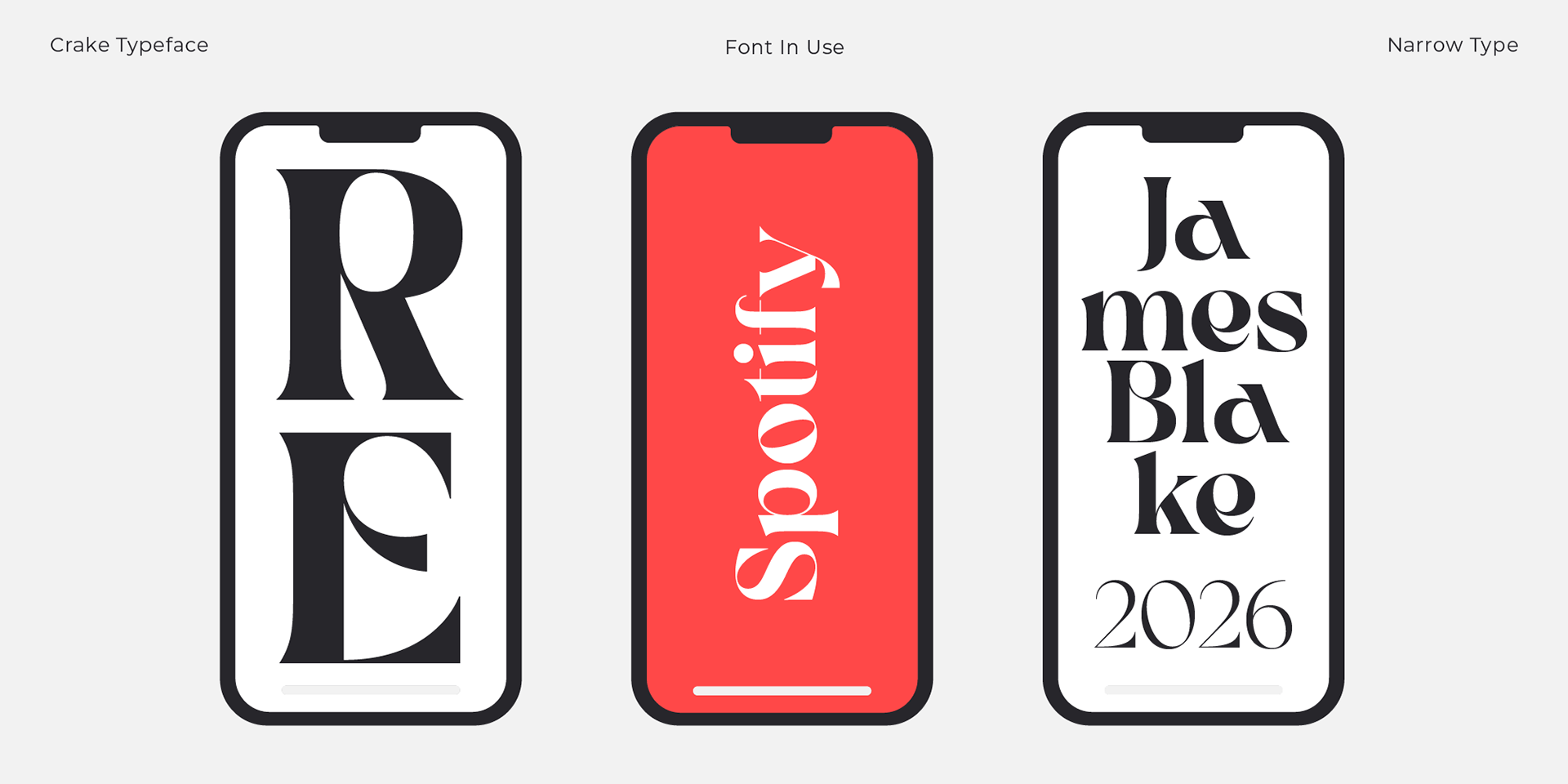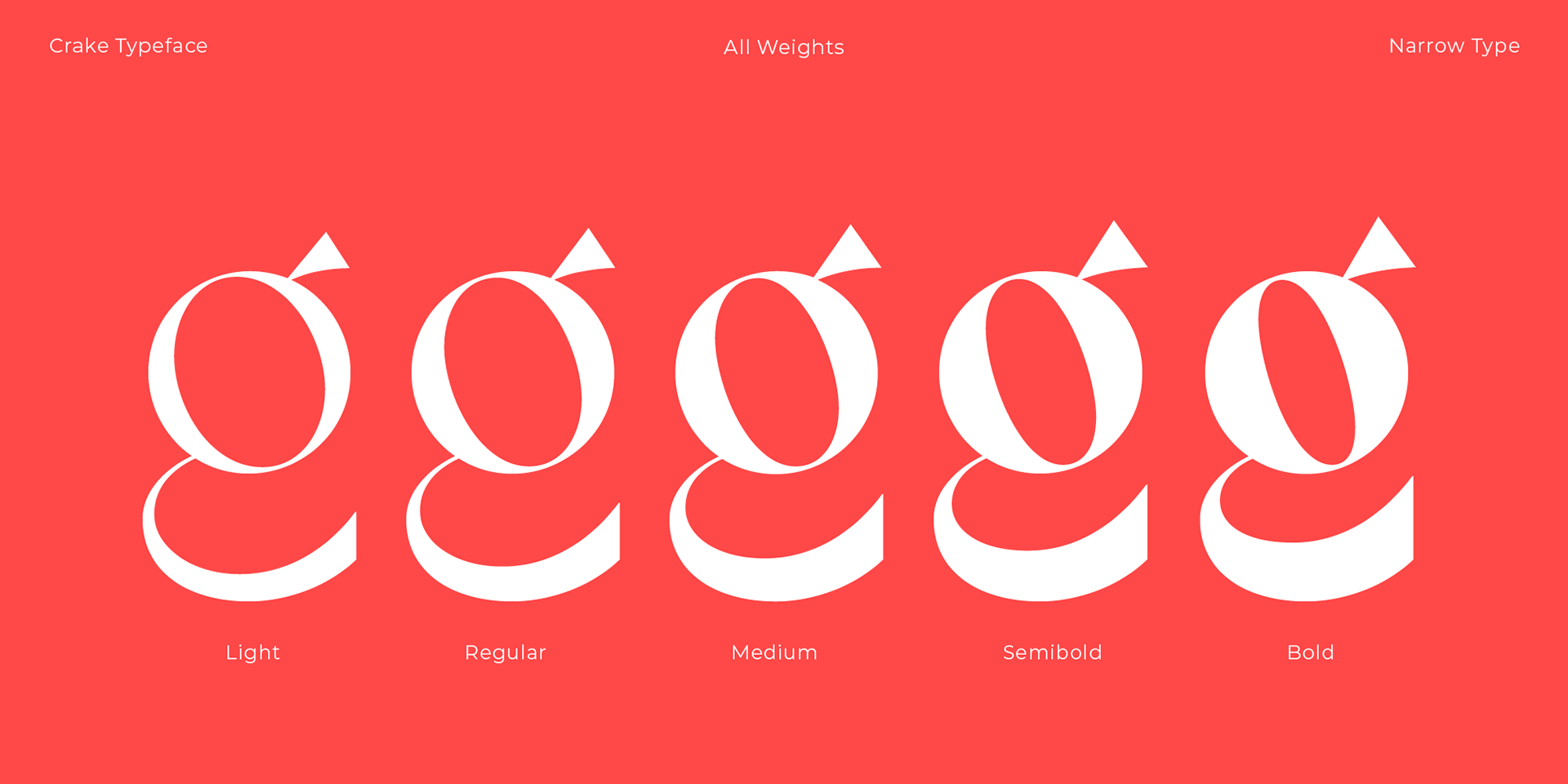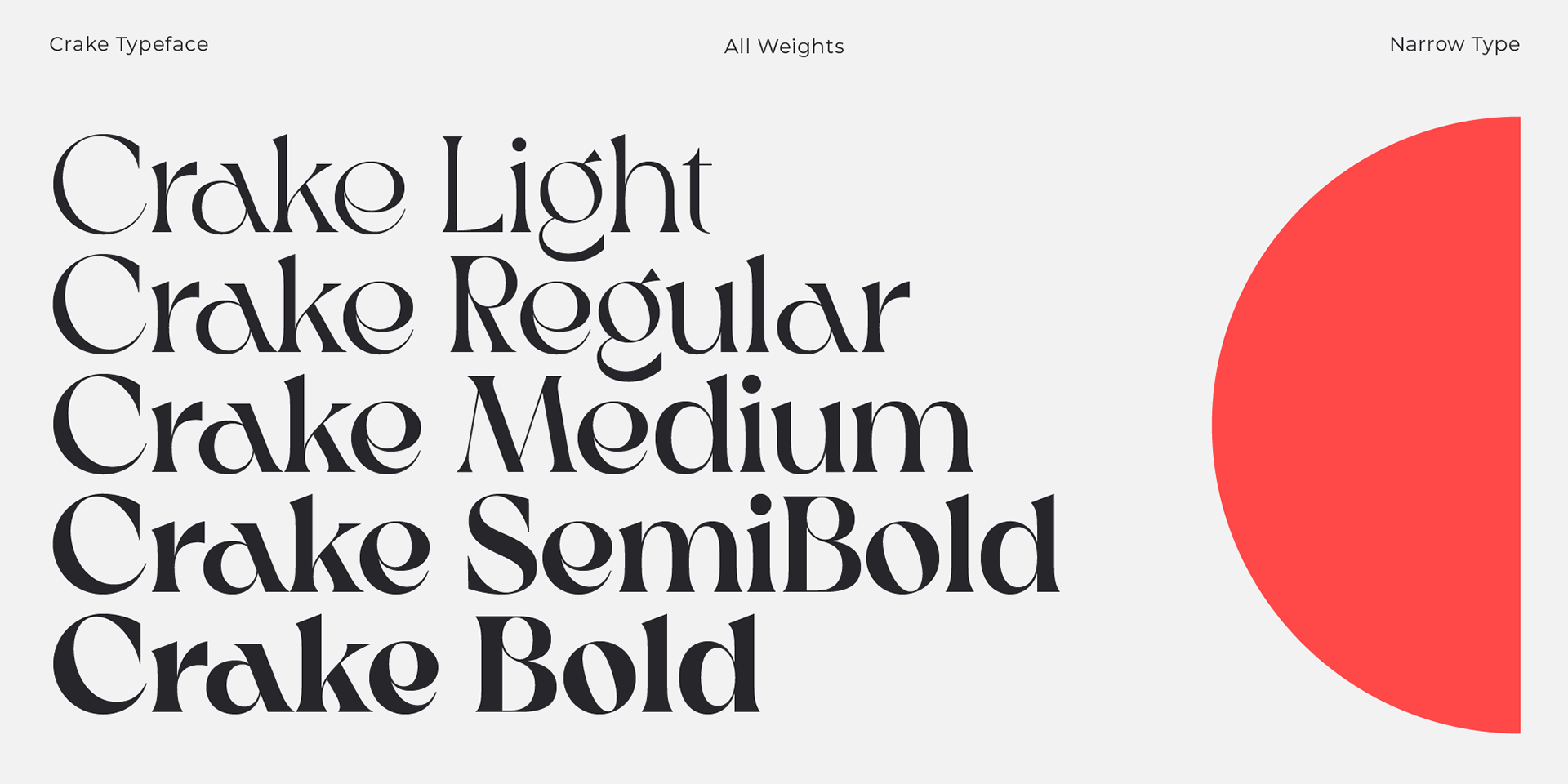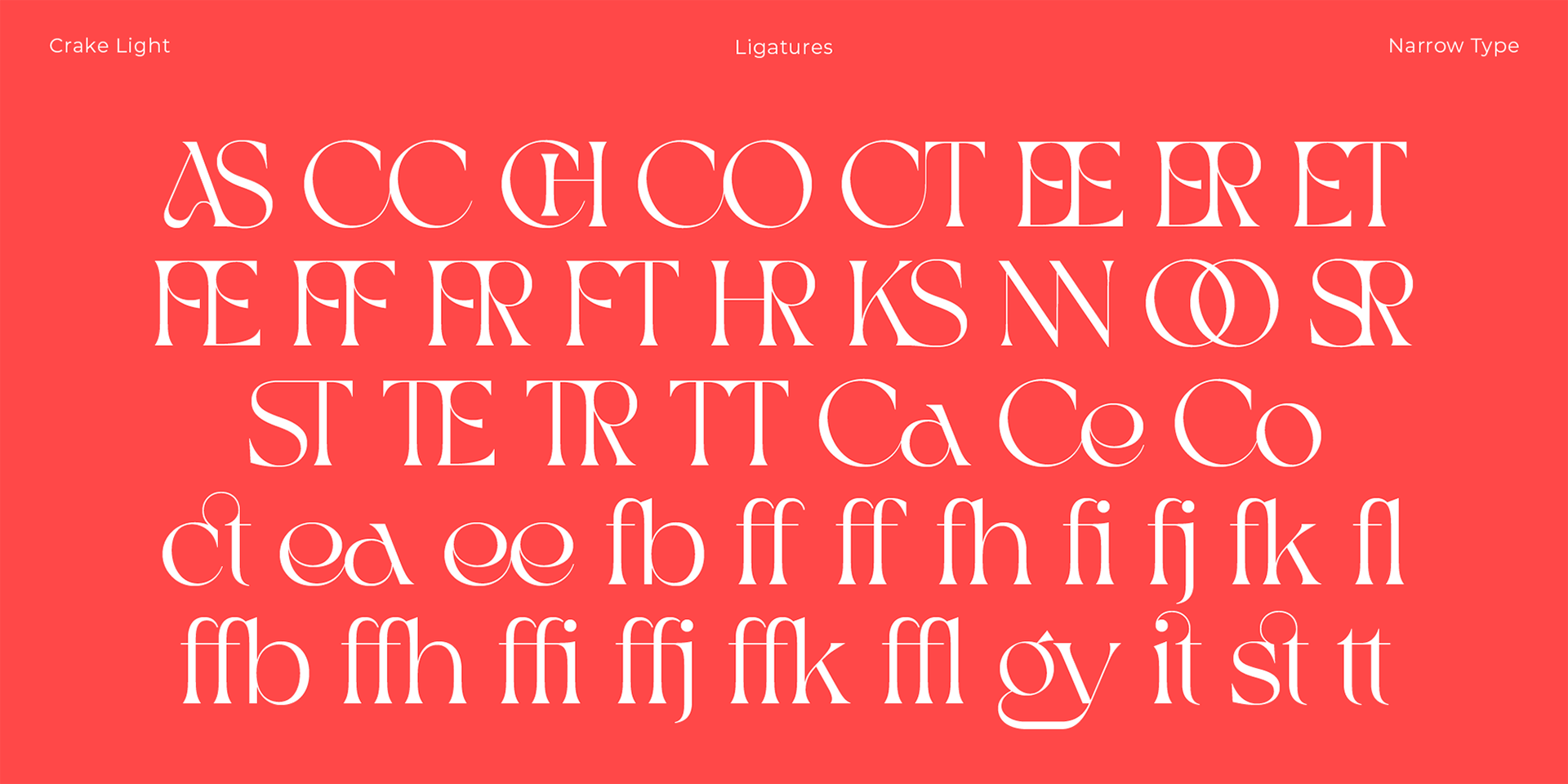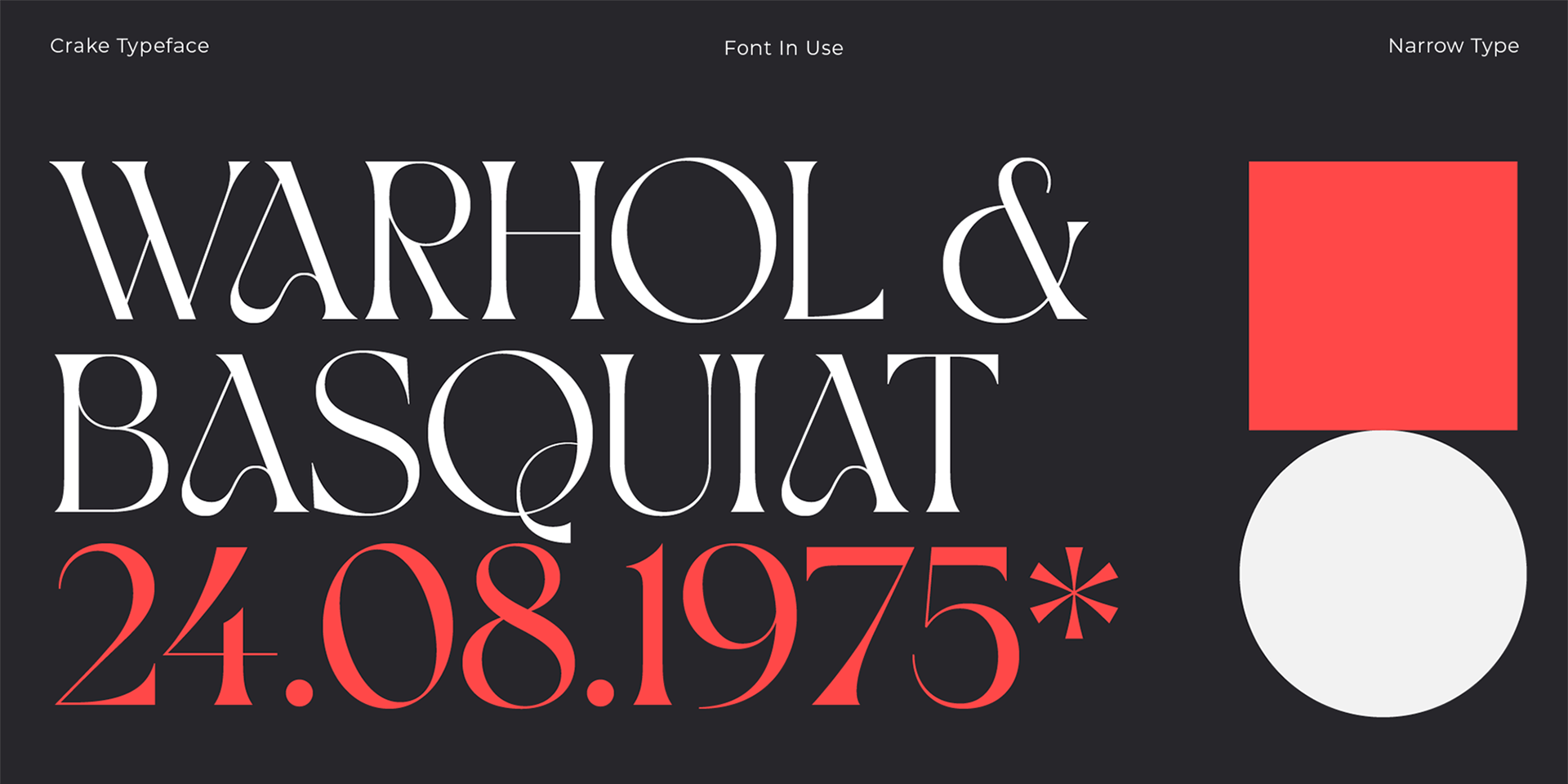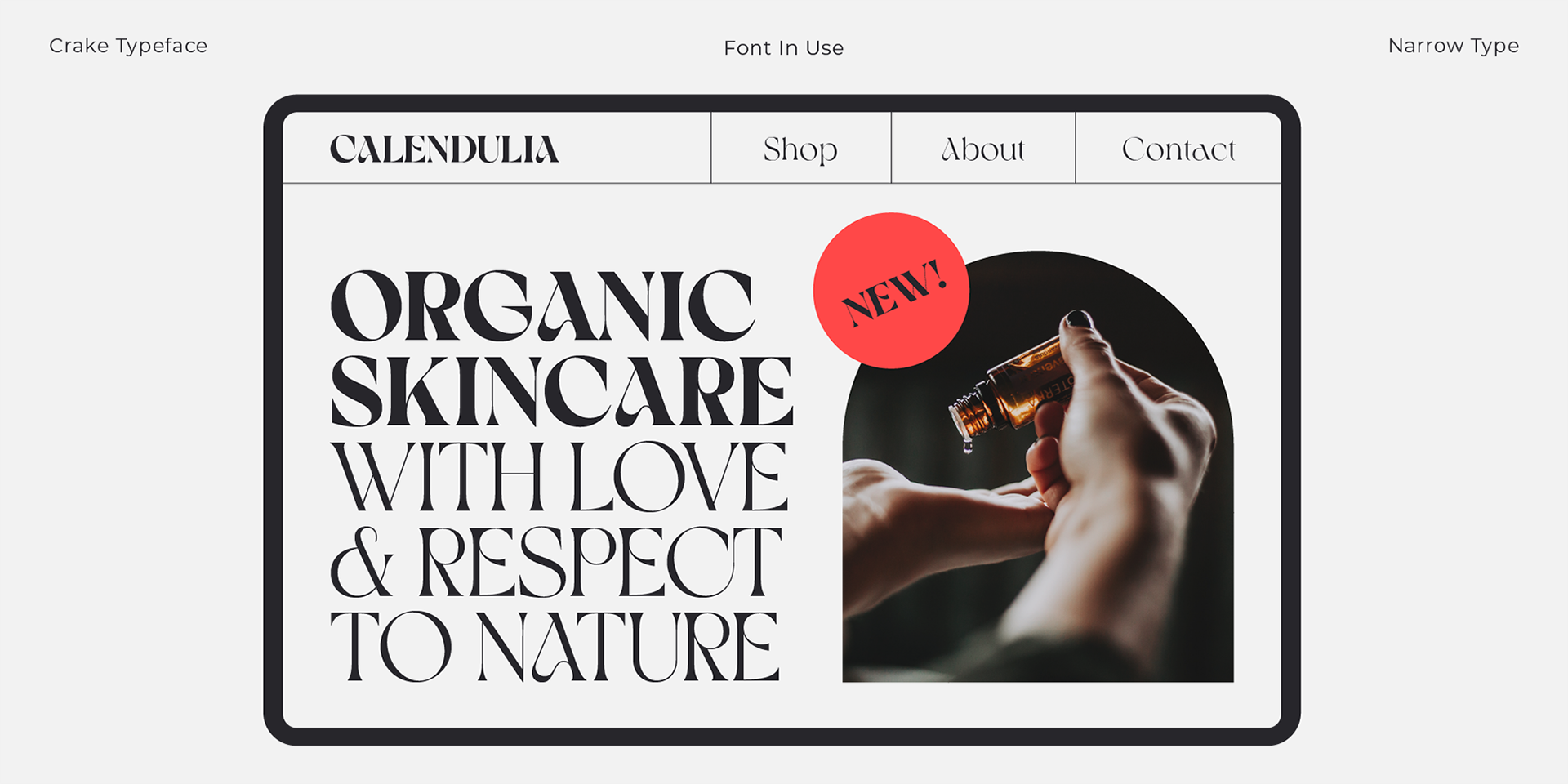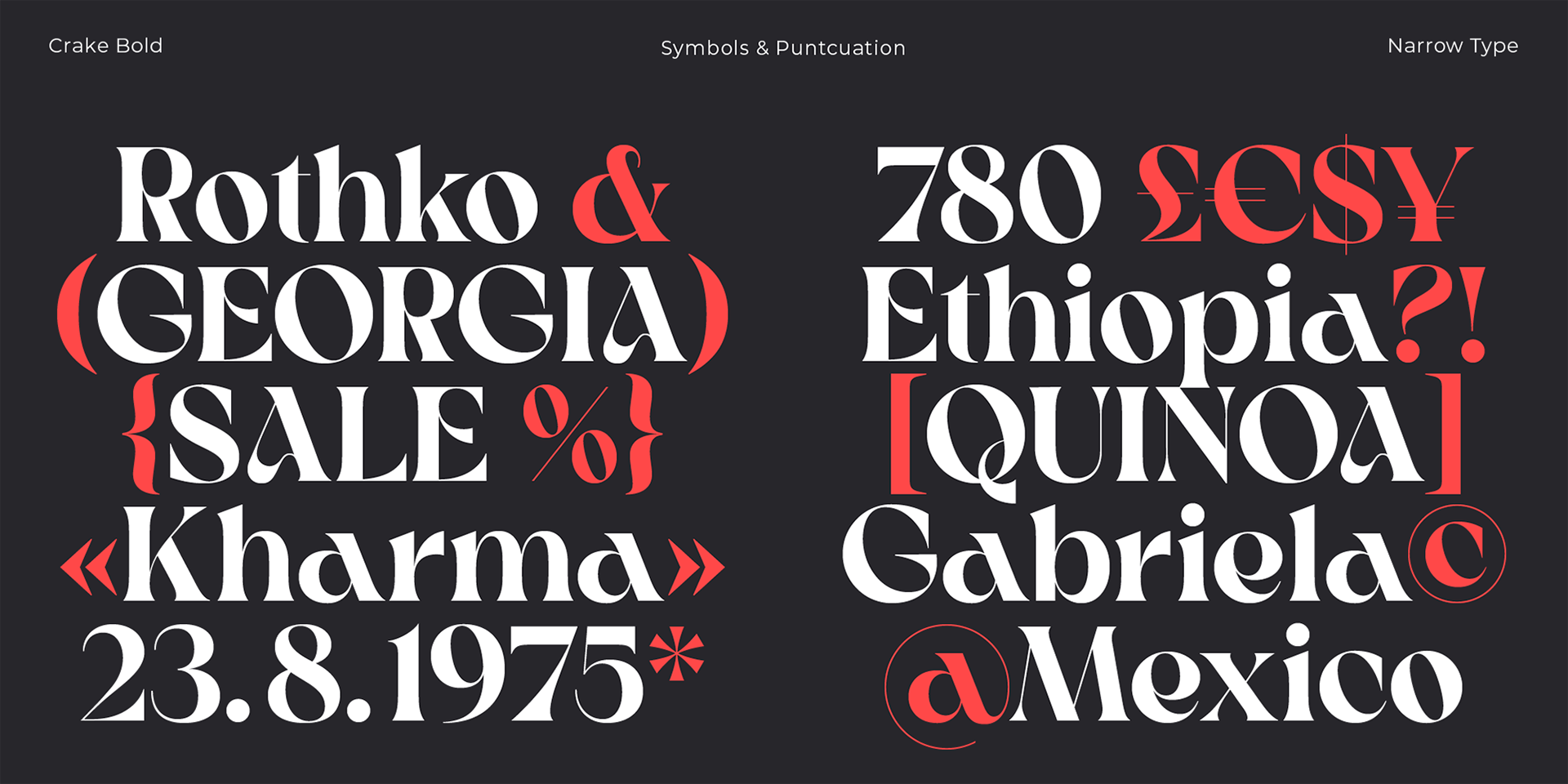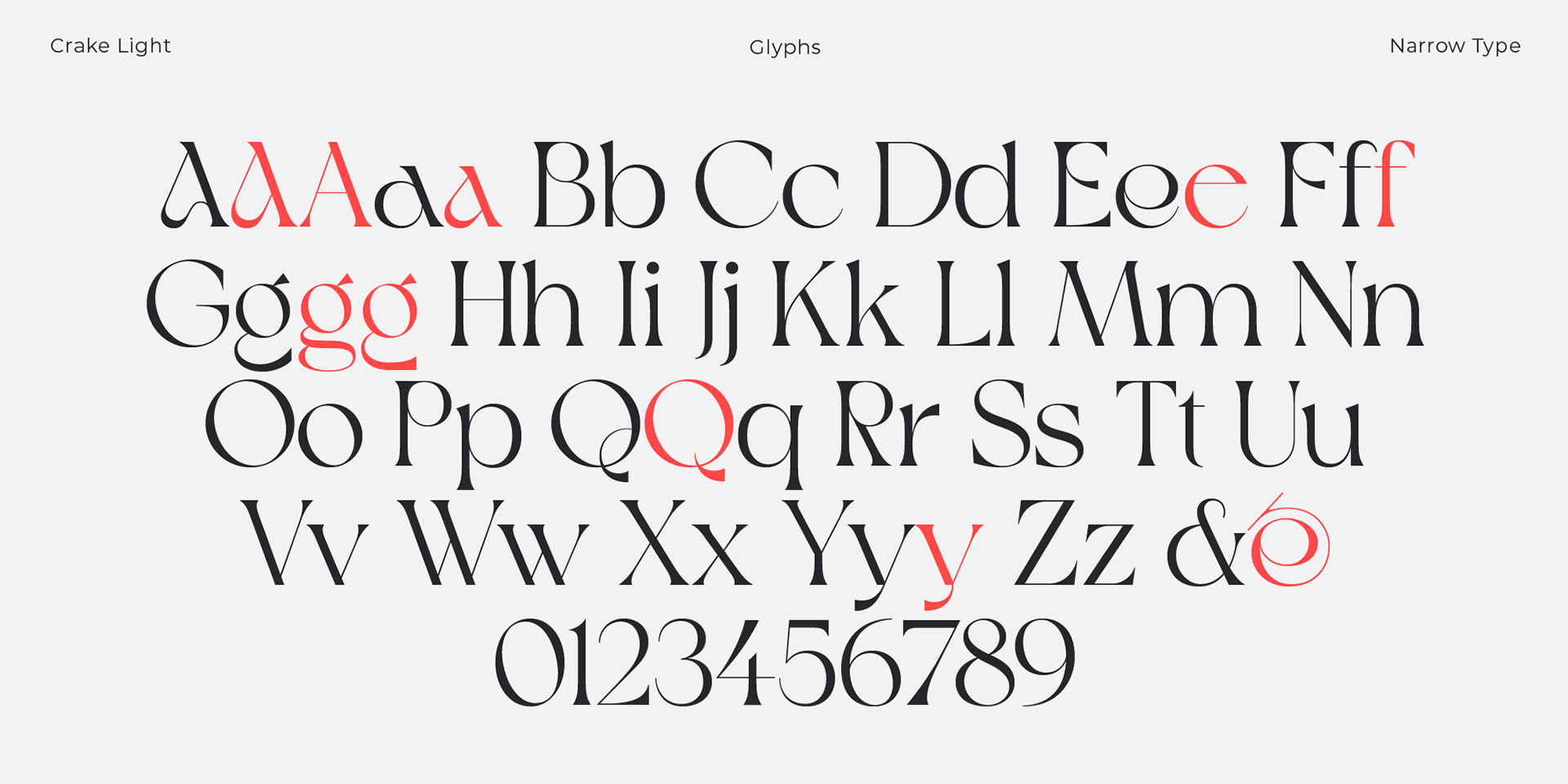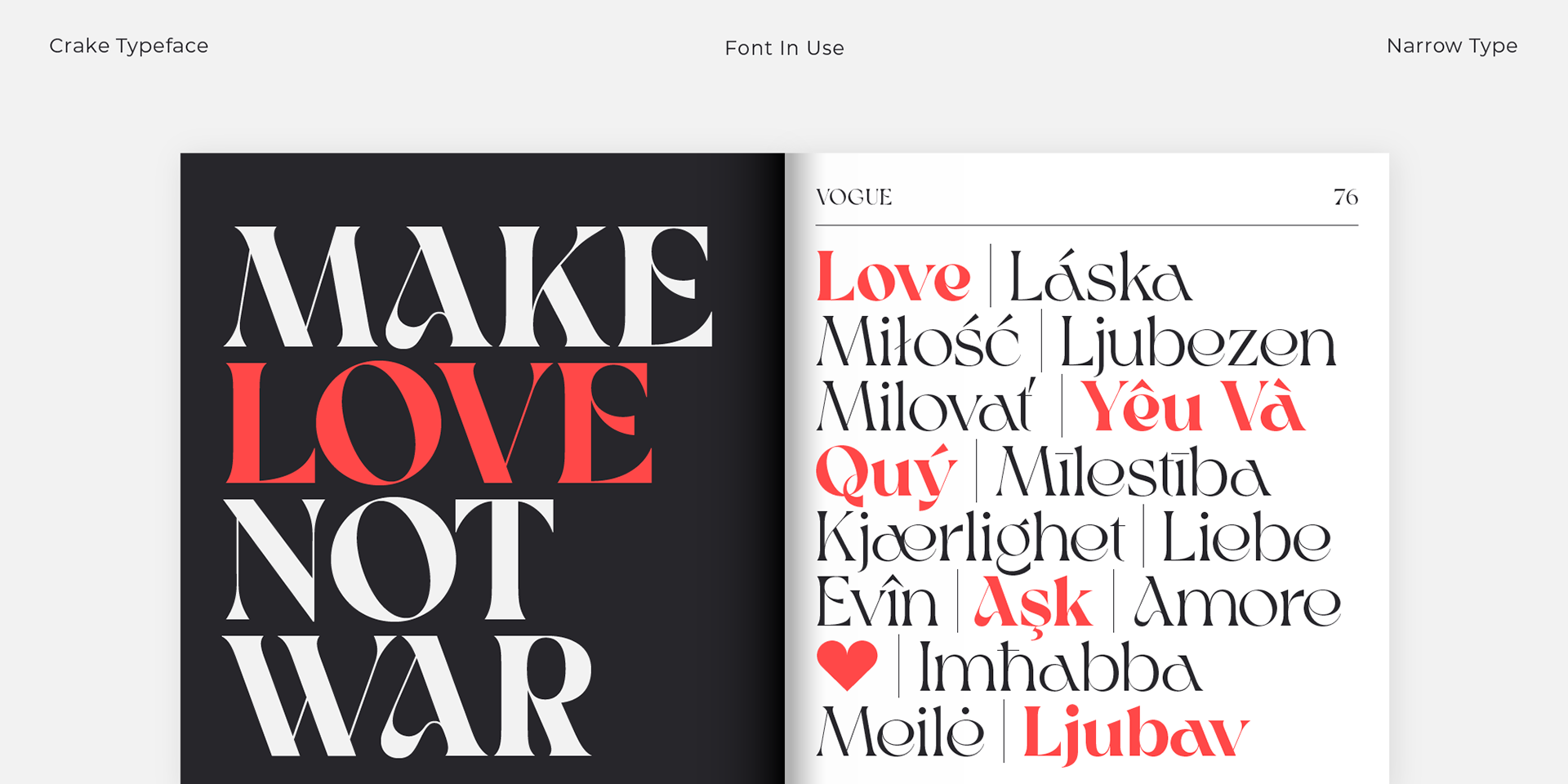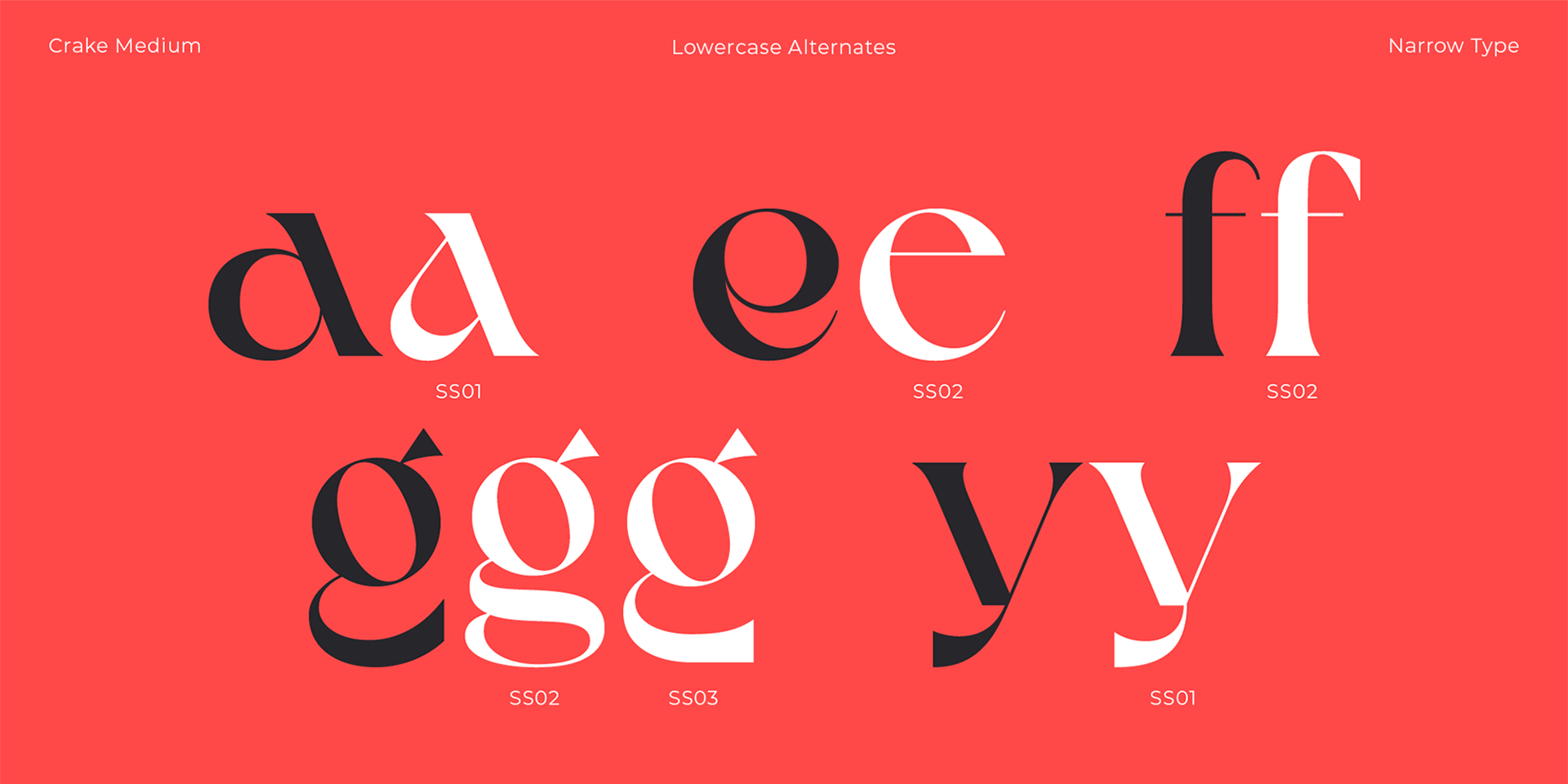
Crake is a contemporary high-contrast serif typeface with a distinctive look. It combines organic details with strong geometry shapes. The typeface comes in 5 weights from Light to Bold. Crake has rounded counters of uppercase letters A, B, E, F, P and R which creates an unique and organic character. With different stylistic sets you can change the feel of your design from more organic to more standard. The typeface also offers many discretionary and standard ligatures. Crake is a display typeface with large x-height which works best for headlines or short to medium-length texts. It’s a perfect typeface for branding, editorial design and much more.